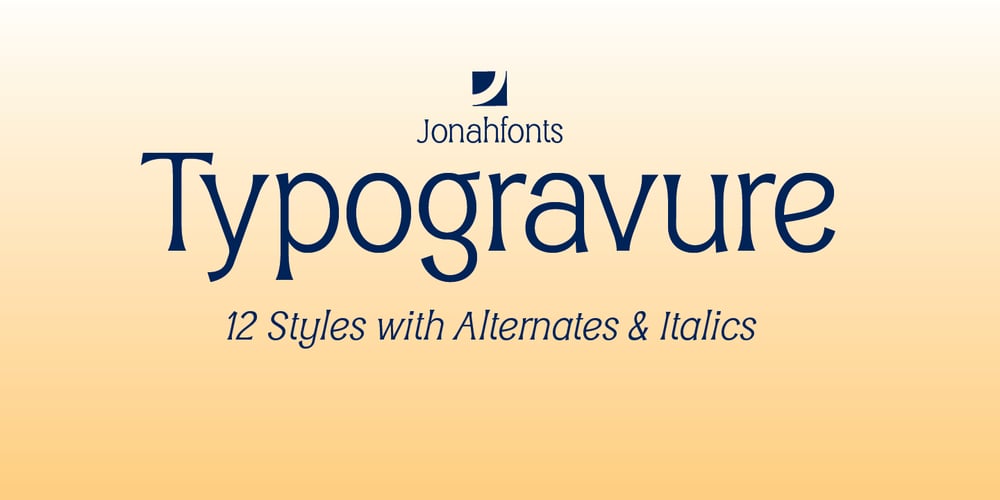
Typogravure
Typogravure font
Typogravure Font Family was designed by John Nahmias and published by Jonahfonts. Typogravure contains 12 styles and family package options. A family with a retro feel with 12 styles in 6 weights, for both headlines and body text use as well editorial and corporate design from advertising to packaging and digital design. Supports Central/European languages.